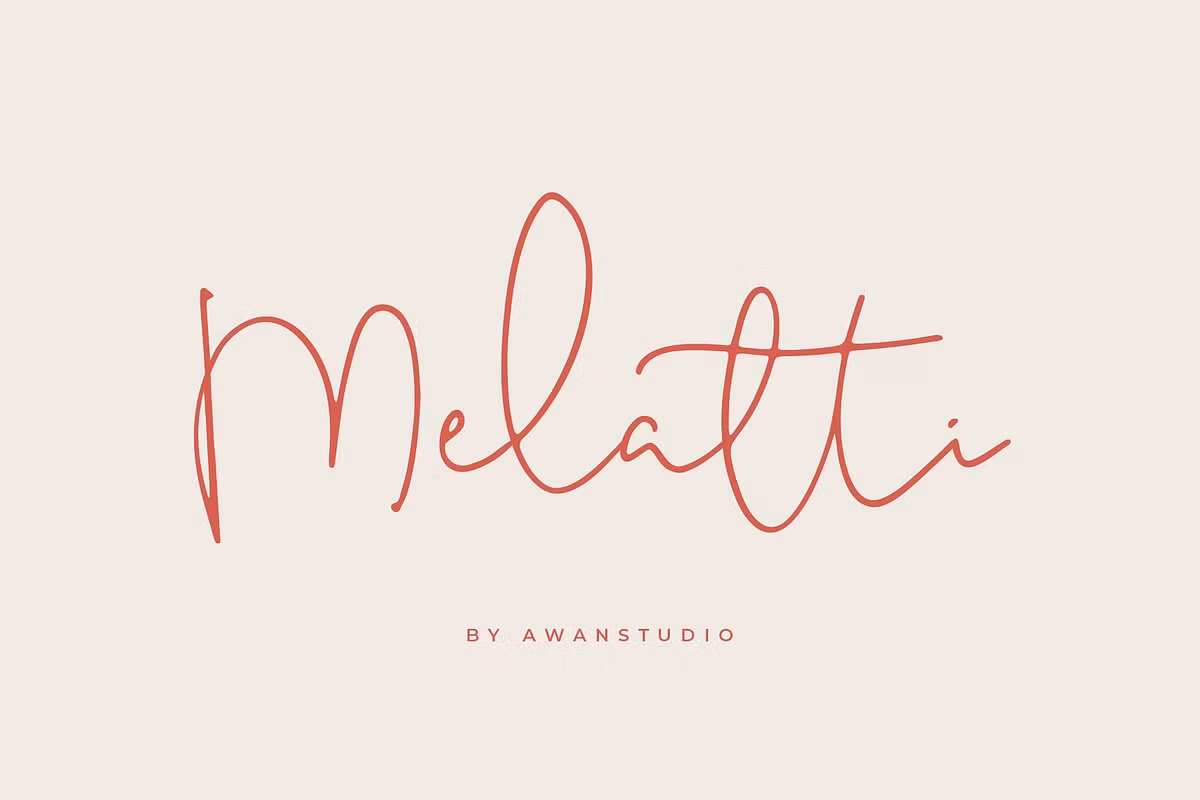
Melatti - Handwritten Font Free Download
Melatti - Handwritten Font Free Download is a unique and elegant handwritten typeface designed to add a personal and organic touch to your designs. Featuring flowing strokes and natural letterforms, this font is perfect for creating logos, branding materials, invitations, greeting cards, and social media content. Its relaxed yet sophisticated style makes it ideal for projects that require a creative and authentic vibe. Whether you're designing for a boutique brand, a creative event, or crafting a personal project, Melatti - Handwritten Font Free Download lets you explore its artistic style in personal projects before purchasing a commercial license. Add charm and personality to your designs with this beautifully crafted handwritten font.